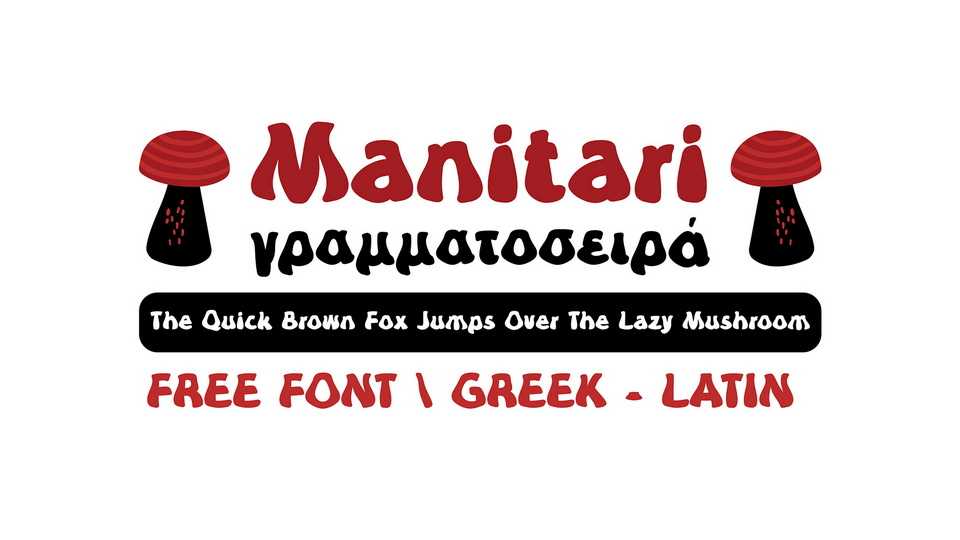
Download Manitari font, a playful groovy typeface that takes your designs on a lively journey back to the colorful and vibrant spirit of the ’70s. Manitari font features a lively and energetic design, with each letter exuding a sense of rhythmic movement.
Designer: Christos Lentzaris